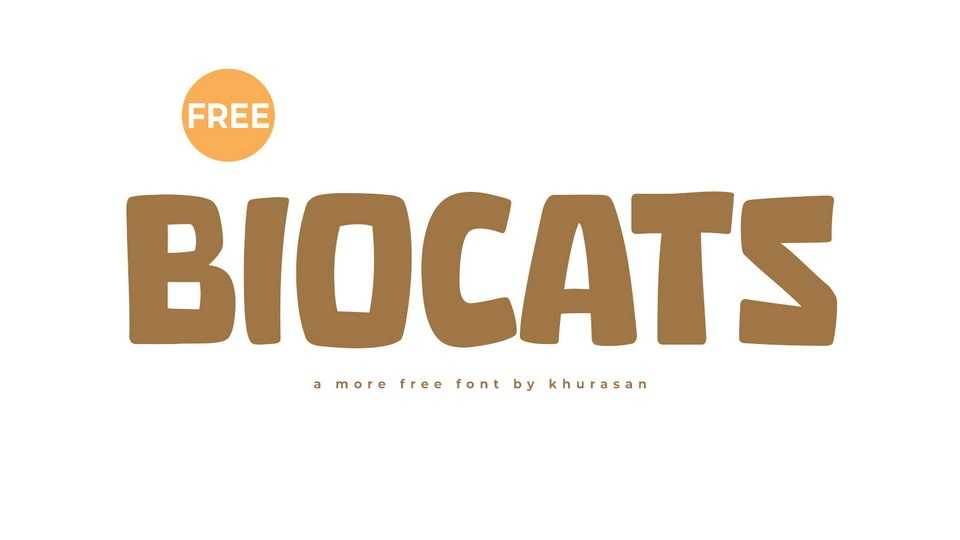
Download Biocats font, a bold and playful handcrafted cartoon typeface that adds a burst of fun and energy to your designs. With its chunky letterforms and whimsical charm, Biocats is perfect for creating eye-catching headlines, posters, and branding materials with a vibrant and dynamic appeal.